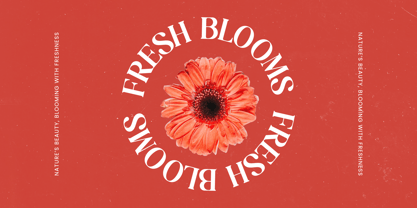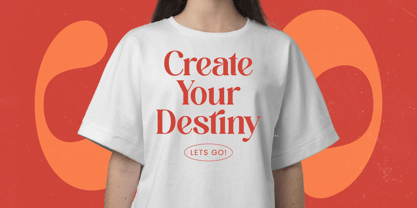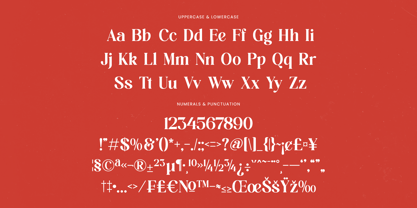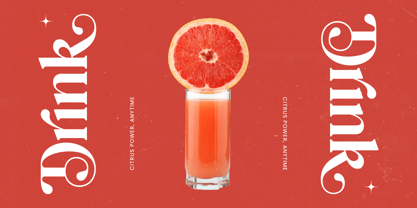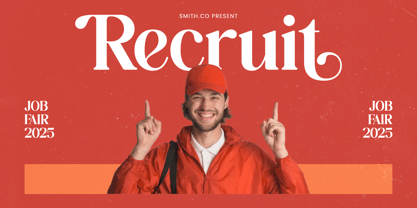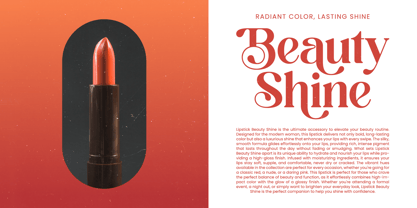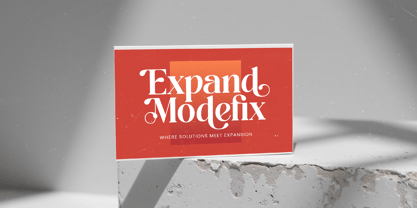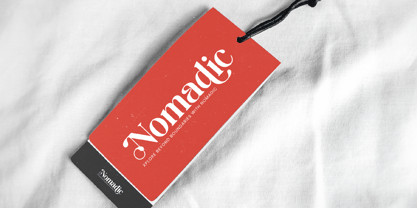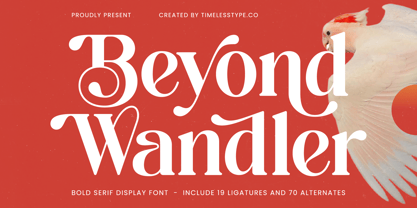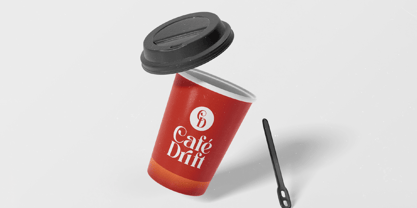
Beyond Wandler
by Timelesstype Studio
The Beyond Wandler Font Family was designed by Heru Utama Putra and published by Timelesstype Studio. Beyond Wandler contains 2 styles and family package options.
Beyond Wandler - Bold Serif Display Font , from Timelesstype, Suitable for any projects such as: logos, branding projects, homeware designs, product packaging, mugs, quotes, posters, shopping bags, t-shirts, book covers, name card, invitation cards, greeting cards, label, photography, watermark, special events, and all your other luxury and beautiful projects that need a Luxury Serif taste.
Designers: Heru Utama Putra
Publisher: Timelesstype Studio
Foundry: Timelesstype Studio
Design Owner: Timelesstype Studio